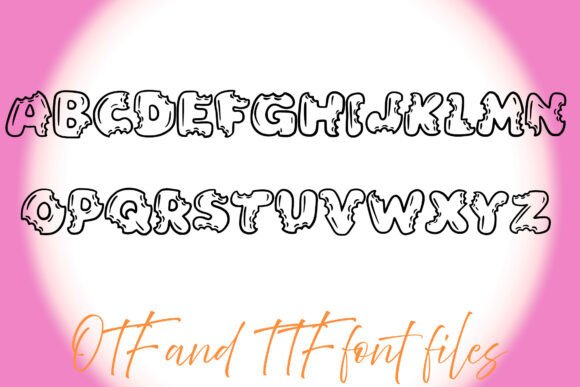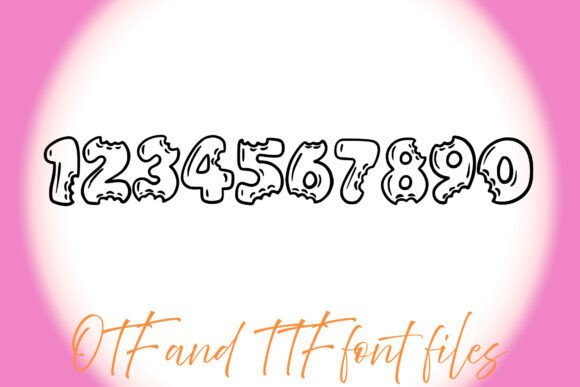
The Perfect Bite of Typography
Who among us hasn’t had that moment of pure creative inspiration – the one where everything clicks, and you know exactly what you need to bring your project to life? For designers, it’s often the discovery of that perfect font that sets the tone for an entire design. And for those seeking a playful twist, Bite Me Font is the answer.
Bite Me Font is a bold, whimsical typeface that’s as fun as it is functional. Its unique design, featuring letters that appear to have been nibbled, is sure to bring a smile to the faces of kids and kids-at-heart alike. Whether you’re working on a snack packaging project, designing a quirky logo, or creating Halloween graphics with a humorous twist, this font is the perfect choice.
Bite Me Font Key Features
- Character Count: The font contains a total of 210 characters, including uppercase and lowercase letters, numbers, and special characters.
- Unique Characteristics: The font features a unique blend of modern and vintage elements, with bold lines, rounded edges, and intricate details that give it a distinctive look.
Bite Me Font Review
I’ve had the chance to work with Bite Me Font for a recent design project, and I must say it’s been an interesting experience. Here’s what I think:
- The unique, playful style of Bite Me Font is perfect for creating eye-catching headlines and titles.
- The font’s bold, chunky feel adds a lot of energy and personality to text-based designs.
- The font is well-suited for informal and fun designs, such as social media graphics, posters, and advertising materials.
- The font’s unconventional style may not be suitable for all types of projects, such as formal documents or academic papers.
- The font’s boldness can make it difficult to read in small sizes or when used extensively throughout a design.
Overall, I think Bite Me Font is a great choice for designers looking to add some personality and whimsy to their designs. While it may have some limitations, it’s a fun and effective font that can help create memorable and engaging designs.
The Bite Me font is ideal for:
Creating bold and eye-catching headlines.
Designing playful and creative graphics.
Adding a touch of whimsy to your branding and marketing materials.